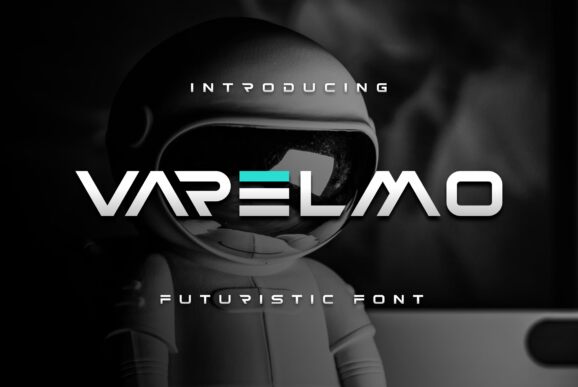
Radiating a bold, captivating presence, the Varelmo font by Albert Kalingga showcases a remarkable futuristic aesthetic. With its expansive, geometric letterforms and distinctive angular edges, this display typeface exudes a striking, modern elegance. The font's refined, minimalist design evokes a sense of technological sophistication, effortlessly conveying a forward-thinking sensibility.
This versatile typeface lends itself seamlessly to a wide range of design applications, from eye-catching headlines and impactful branding to sleek user interfaces and dynamic digital experiences. The Varelmo font's expansive width and strong, legible forms make it an excellent choice for capturing attention, while its futuristic flair can elevate any project with a sense of innovation and cutting-edge style.